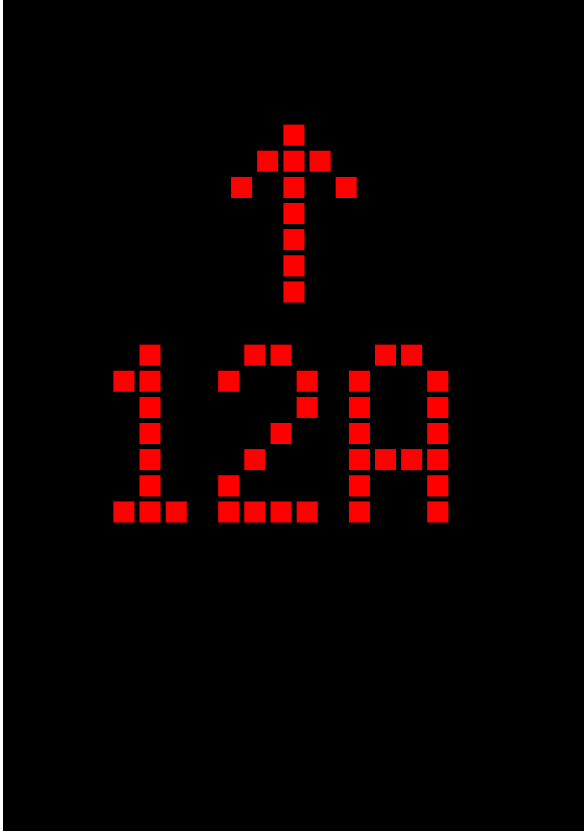
• Same Matrix model, But the difference are narrower
This indicator are can found in most Hitachi Lifts, Winch mostly the indicator are narrow rather than normal indicator, The normal Version will be released later!
Indicator Example